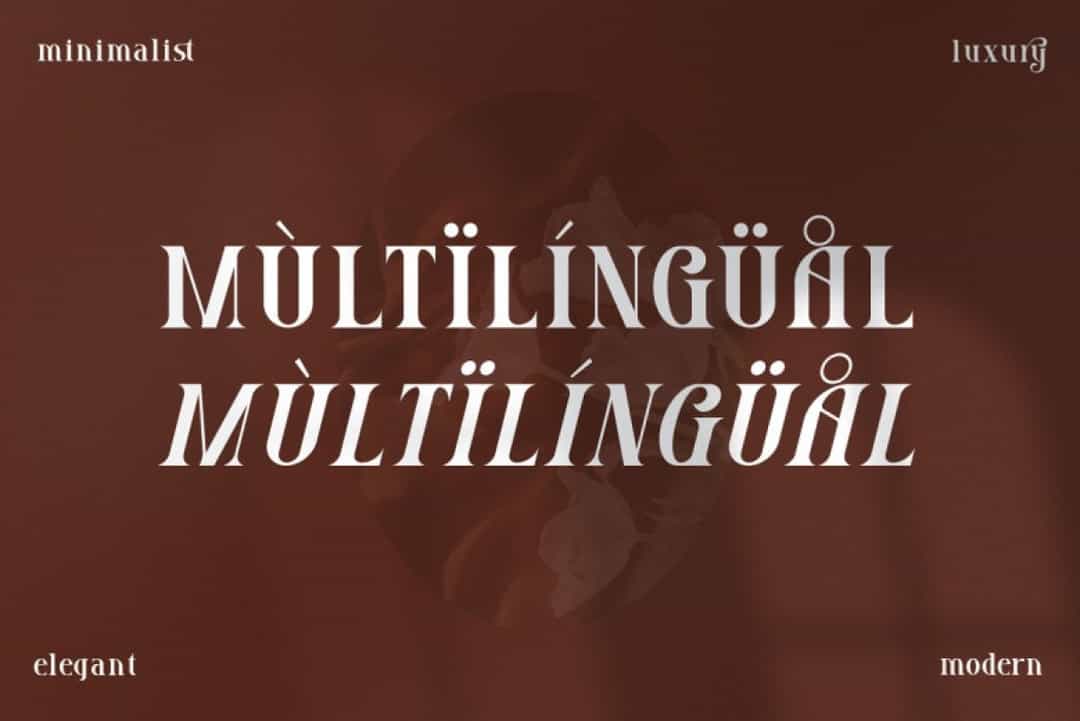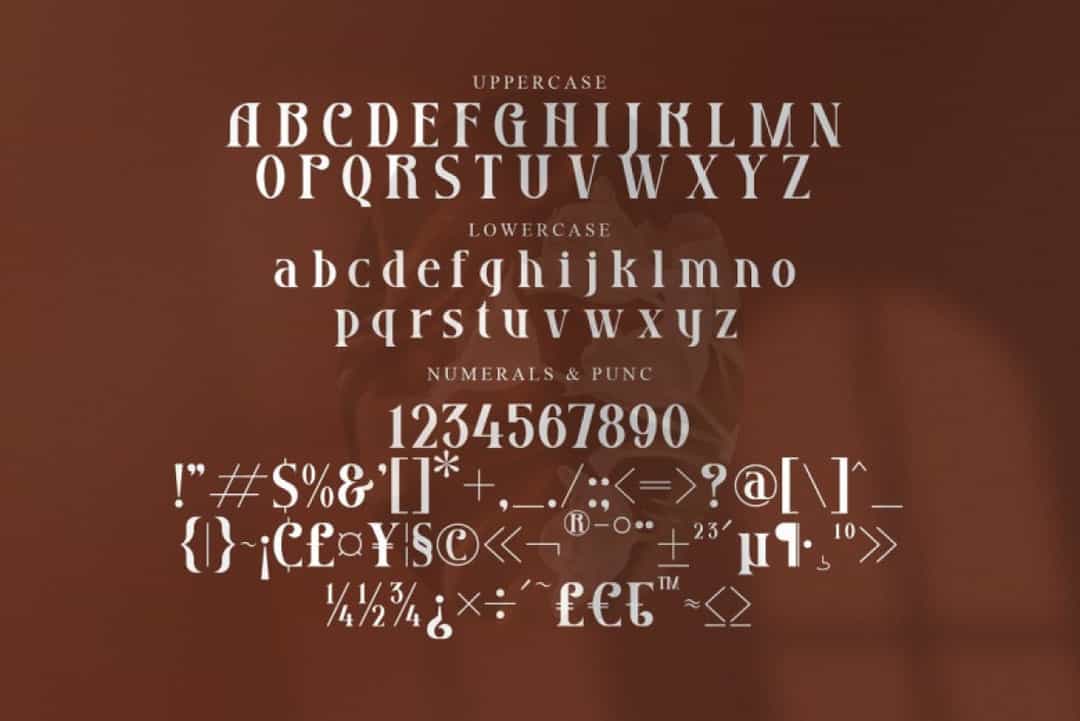
Grozery Serif Font designed by Storytype is an eye-catching modern serif and classic font featuring its distinctive style and contemporary appearance, making it suitable for logo designs, movie titles and book titles, fashion brand clothing designs, magazines articles lettering and quotes as well as many other projects.